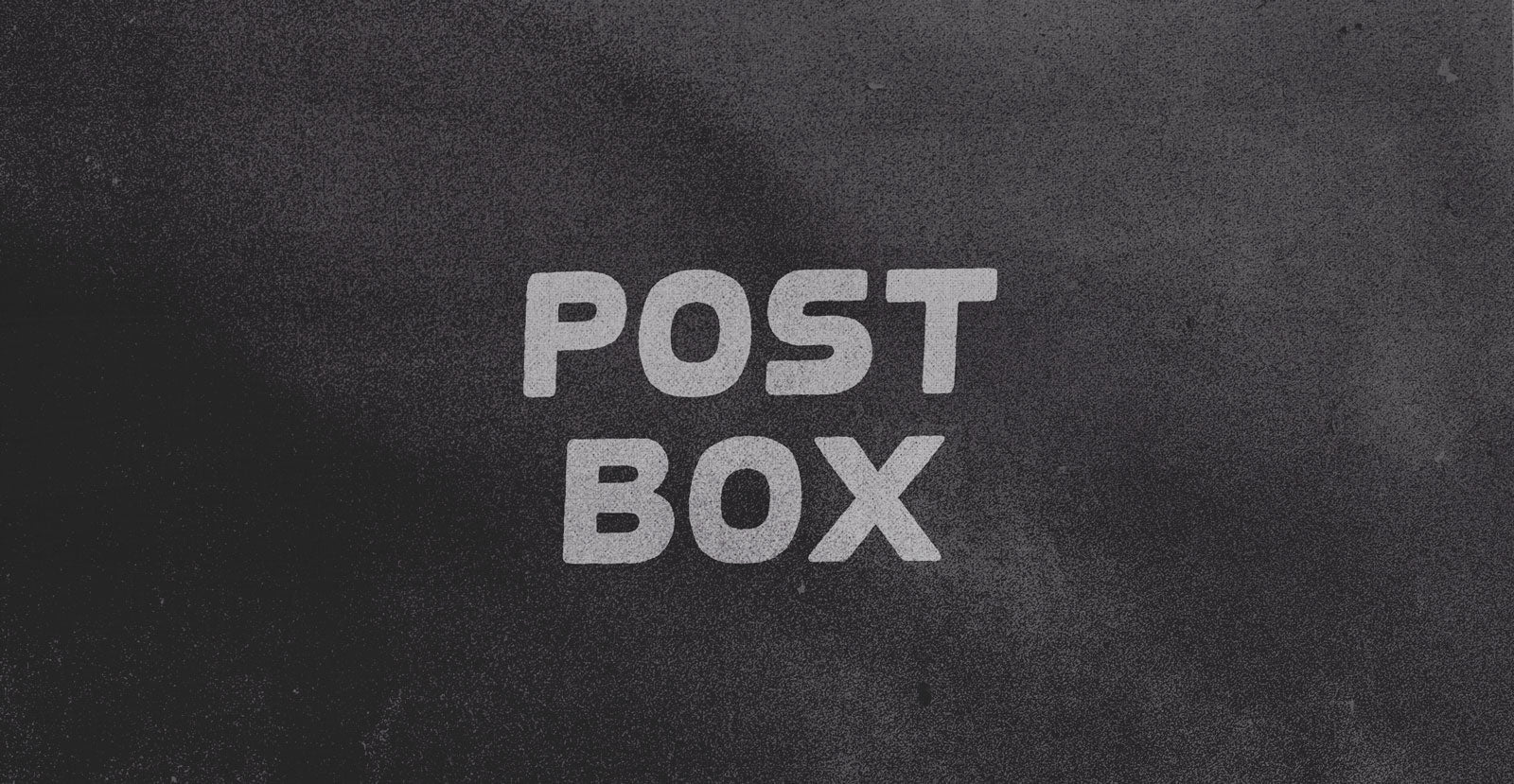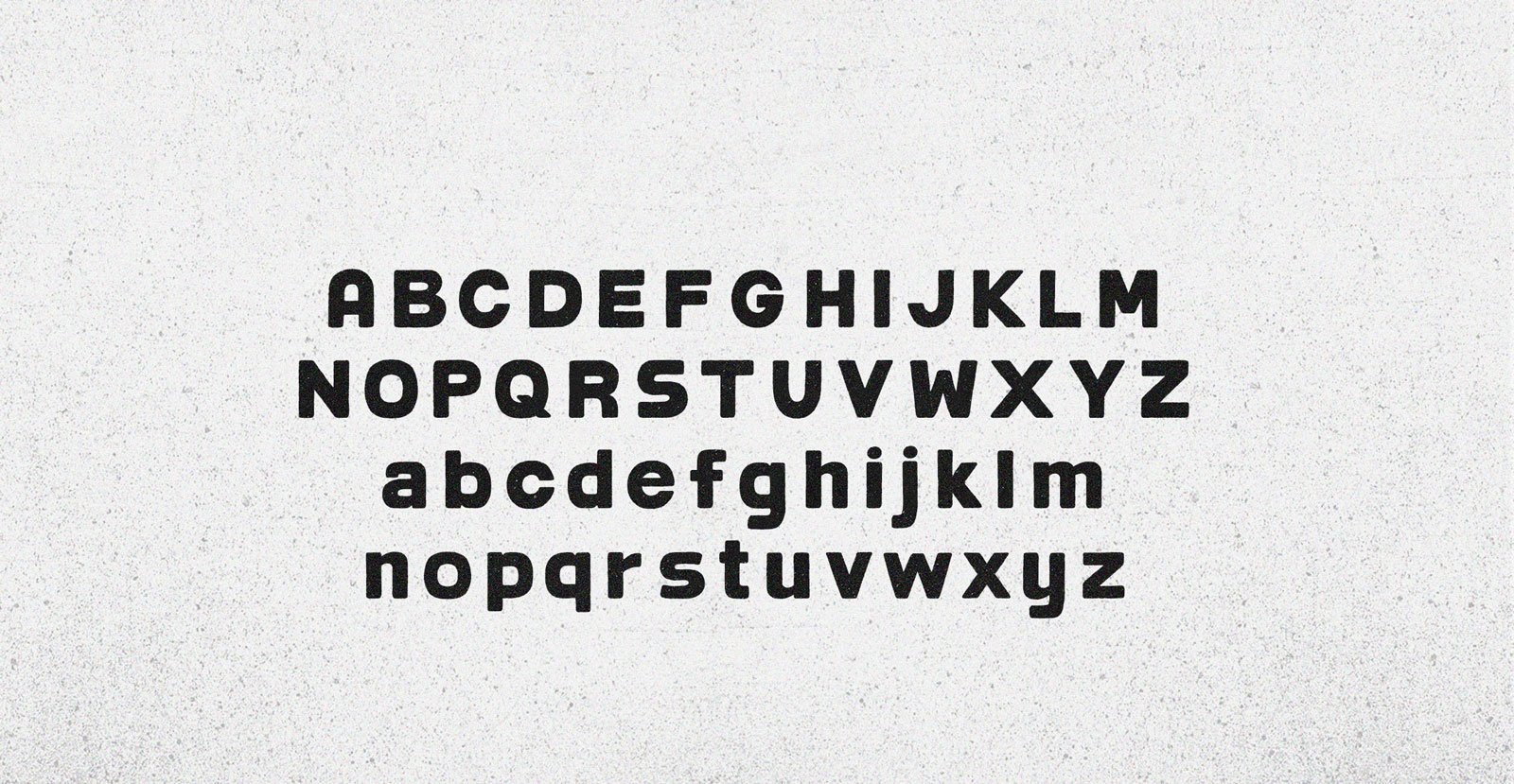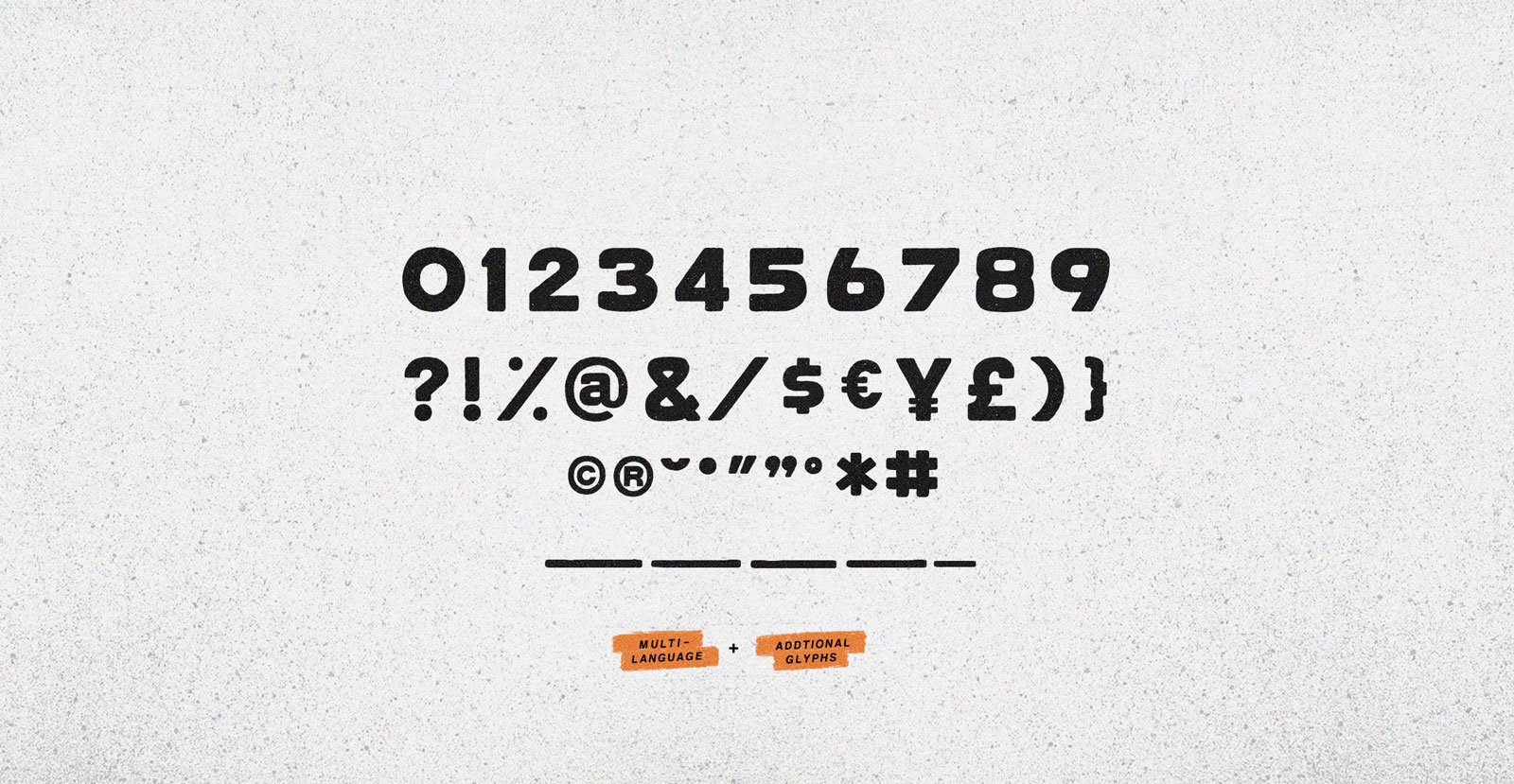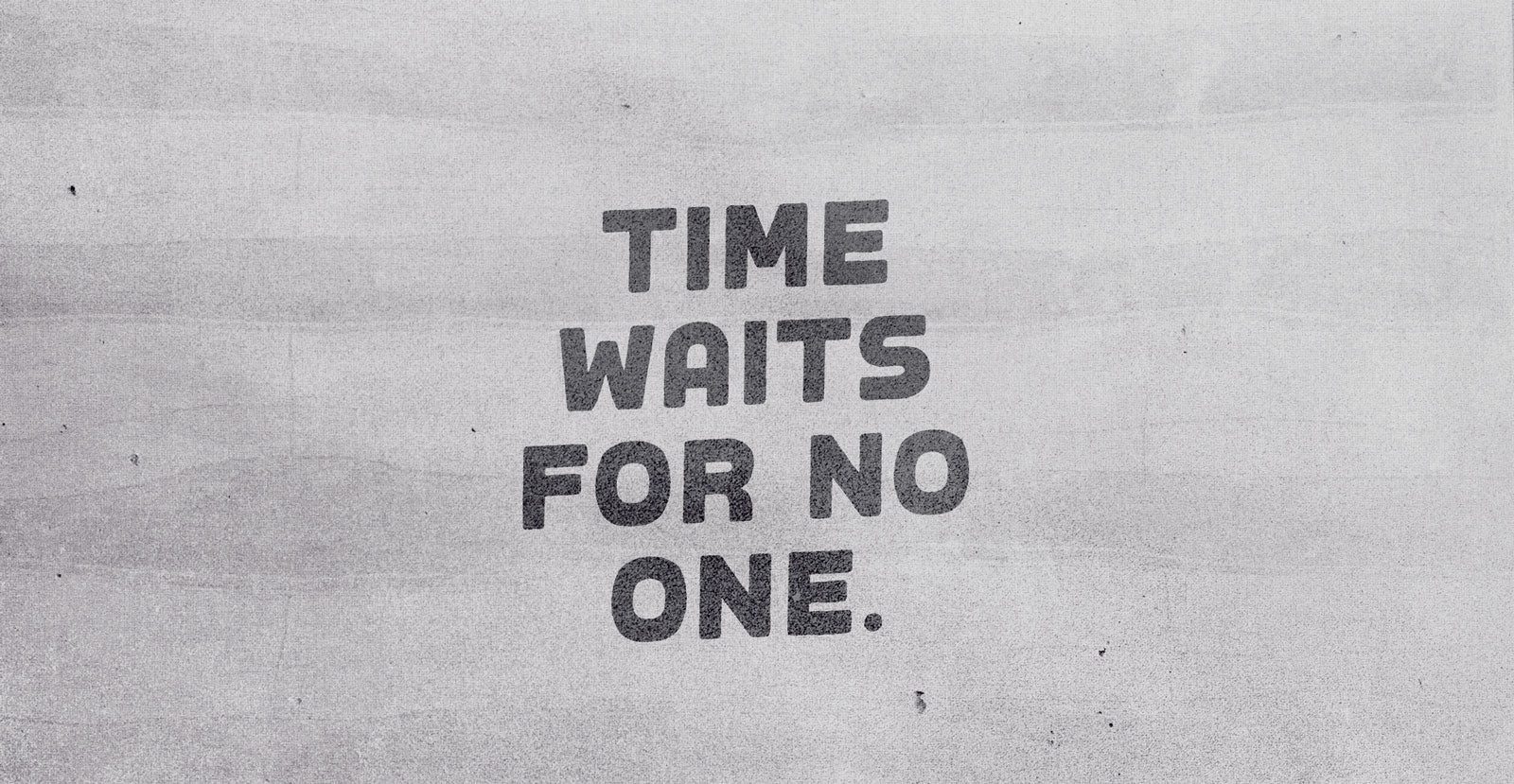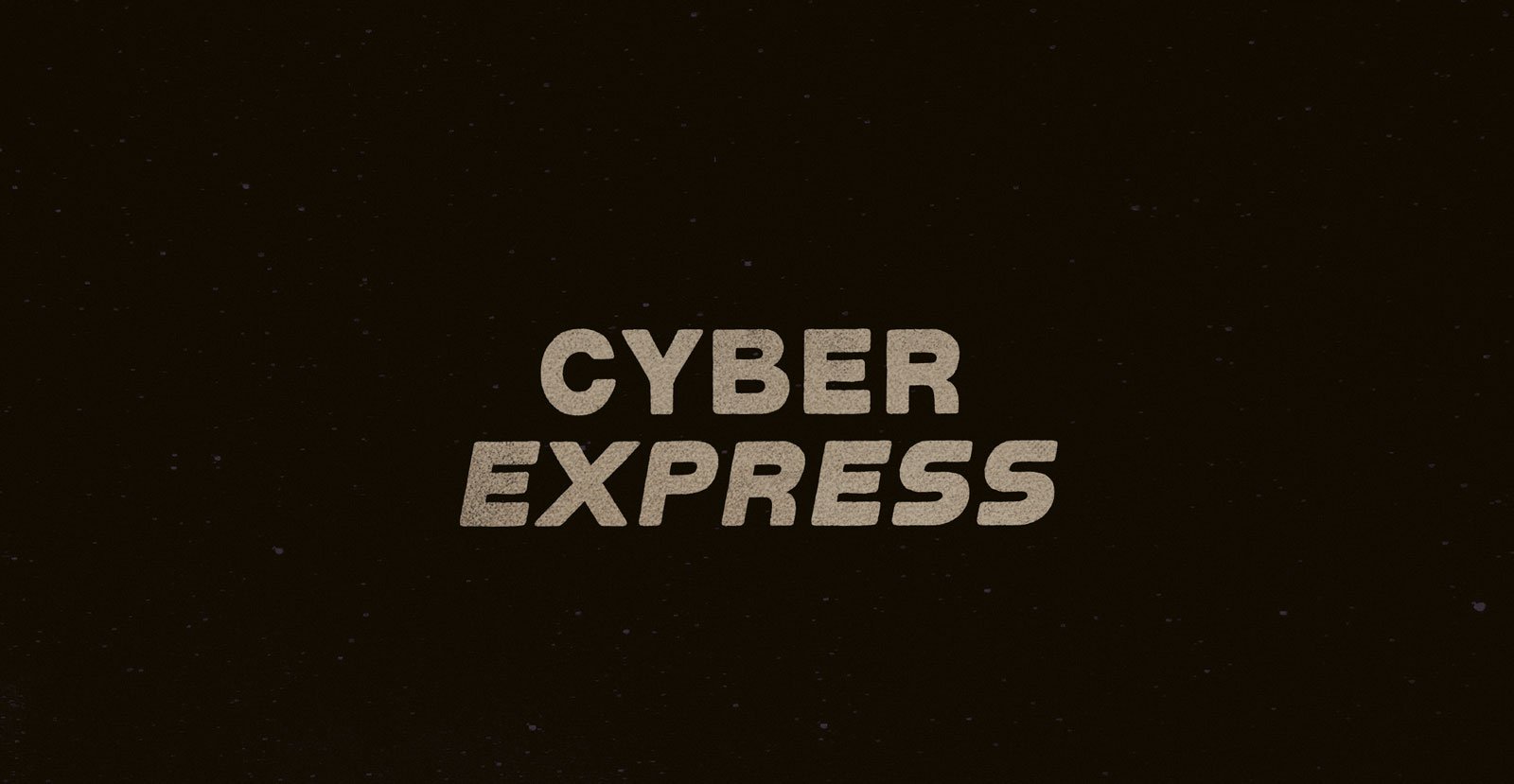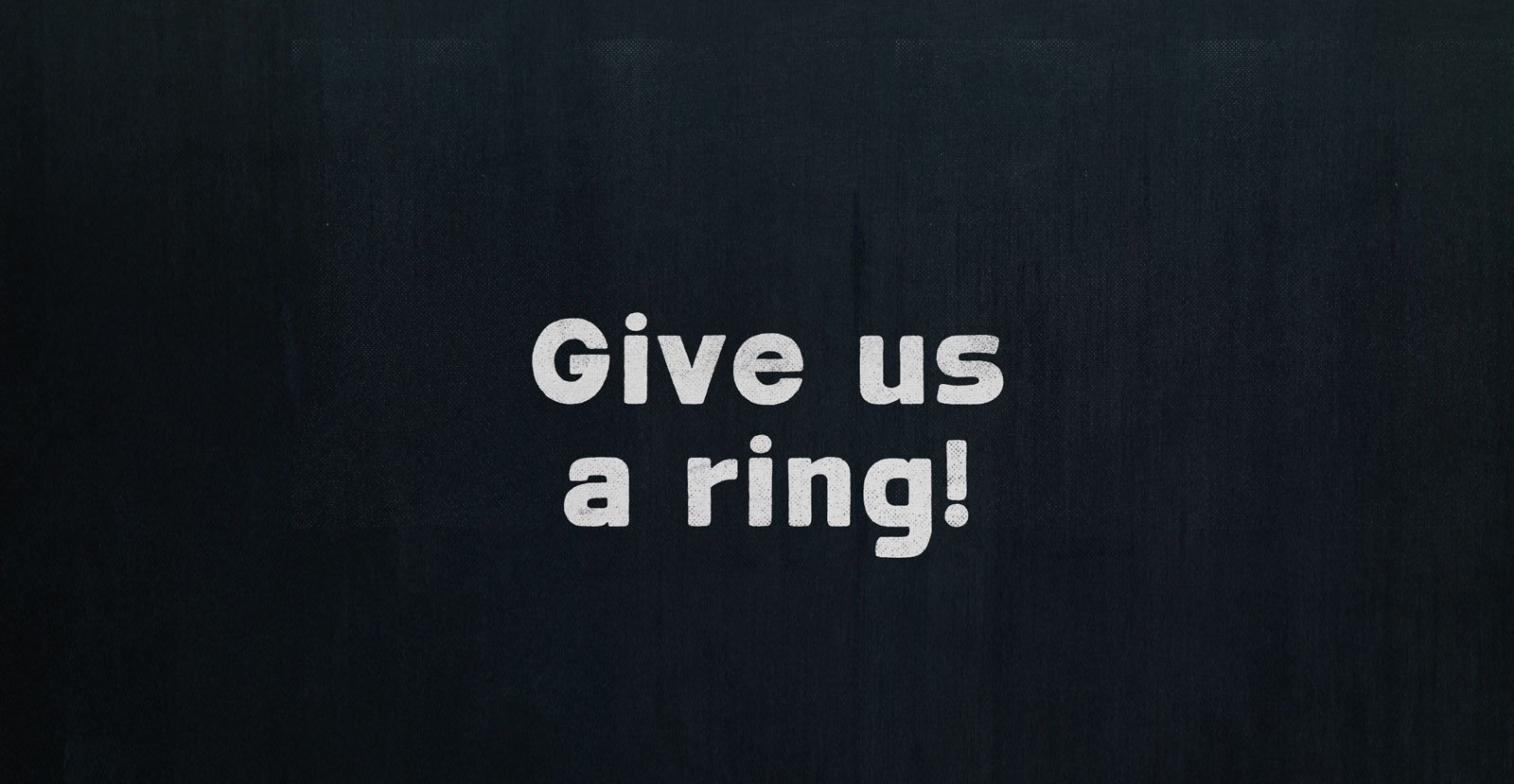
Post Box
Handwritten Sans Serif Font
Let letters slip from your fingers and drop into the Post Box. They fall, unobserved, into indeterminate positions, yet through an exercise in trust in institutions remain destined for delivery in determinate destinations.
• Underlines